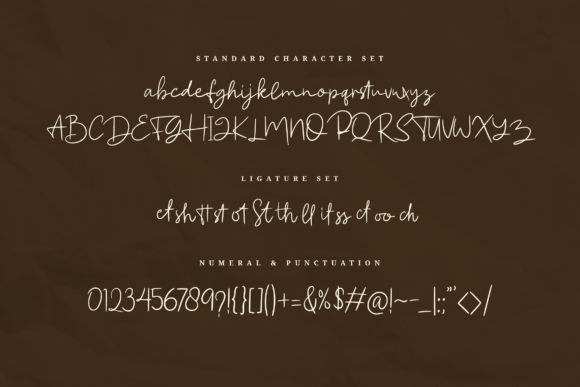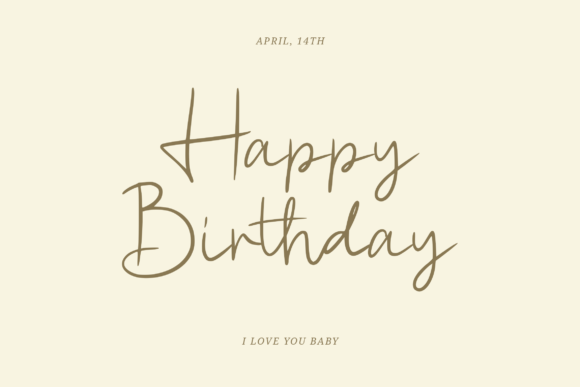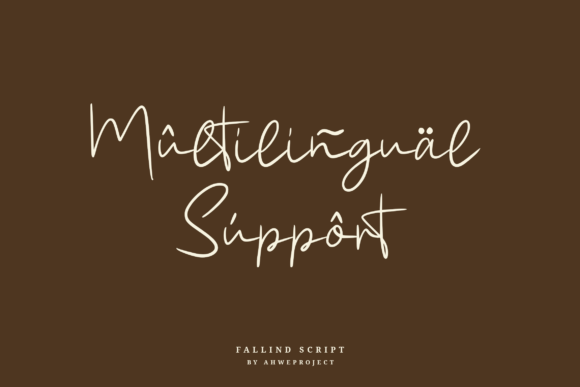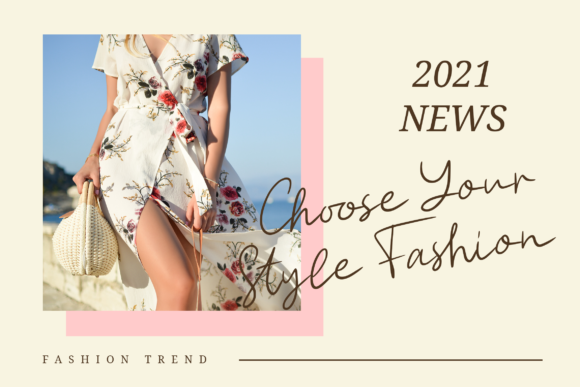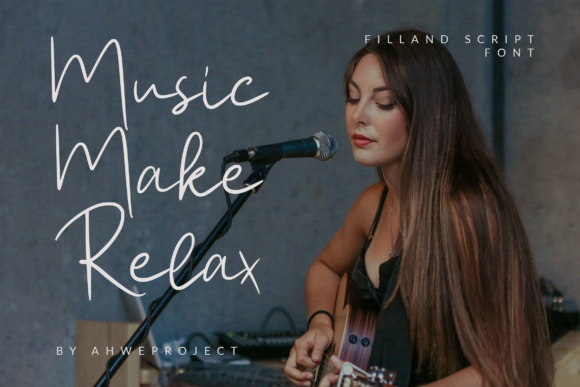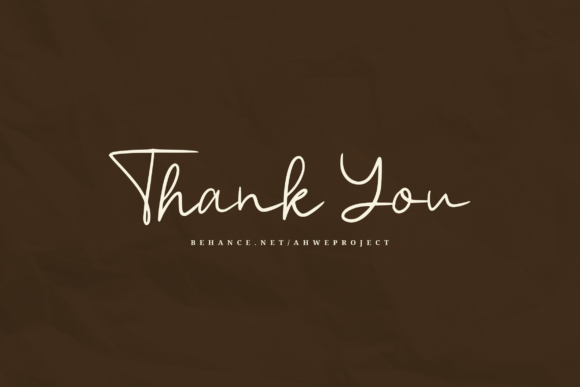
The Elusive Perfect Font: My Encounter with Fallind
I’ll never forget the time I was working on a wedding invitation project, and my client asked for a font that was “elegant, modern, and classy.” I scoured the internet, tried out dozens of fonts, but nothing seemed to fit the bill. That was until I stumbled upon Fallind Font. ✨
Fallind is a delicate and refined script font that has a sophisticated, high-end look that’s perfect for logos, branding, invitations, stationery, wedding designs, social media posts, and more! In this article, I’ll share my experience with Fallind, its features, and how to make the most of it in your designs.
An Honest Review of Fallind Font
What I Love About Fallind
- ✨ Elegant and refined design: Fallind has a beautiful, cursive script that’s perfect for creating sophisticated designs.
- ✅ Highly versatile: This font can be used for a wide range of projects, from logos and branding to invitations and social media posts.
- 💫 Modern and classy look: Fallind has a fresh, contemporary feel that’s sure to elevate your designs.
While Fallind is an excellent font, it’s not without its quirks. ⚠️ Here are a few things to keep in mind:
- 🤔 Limited use in body text: Due to its elegant, cursive nature, Fallind may not be the best choice for long blocks of body text.
- ⚠️ Requires careful kerning: As with any script font, kerning can be a bit tricky with Fallind. Make sure to adjust the kerning to ensure optimal readability.
A Practical Guide to Using Fallind
The Story Behind Fallind
Fallind was designed by a team of typographers who wanted to create a font that was both elegant and modern. Inspired by the flowing lines of calligraphy, Fallind is a refined script font that’s perfect for designs that require a touch of sophistication. 💫
| Font Name | Fallind Font |
| Author | ahweproject |
Q: What type of designs is Fallind best suited for?
A: Fallind is a versatile font that can be used for a wide range of designs, including logos, branding, invitations, stationery, wedding designs, social media posts, and more!
Q: Is Fallind a difficult font to read?
A: Fallind is a script font, and as such, it may be more challenging to read in long blocks of text. However, it’s perfect for headings, titles, and short paragraphs.